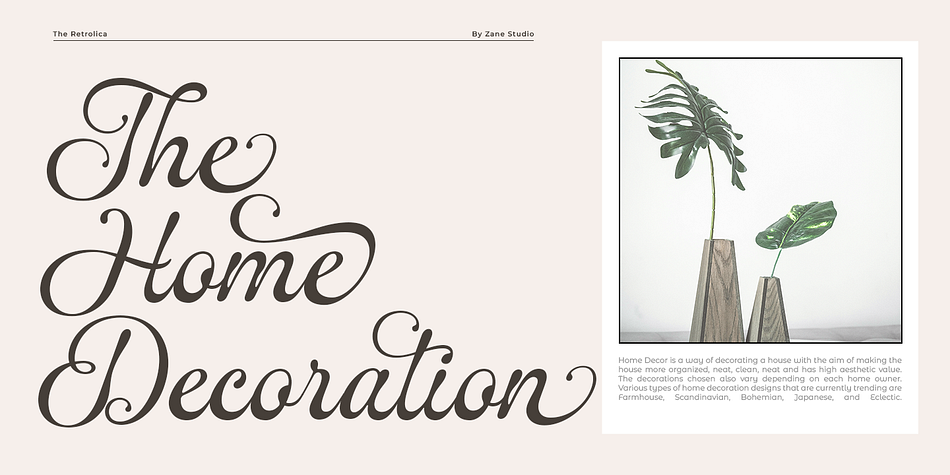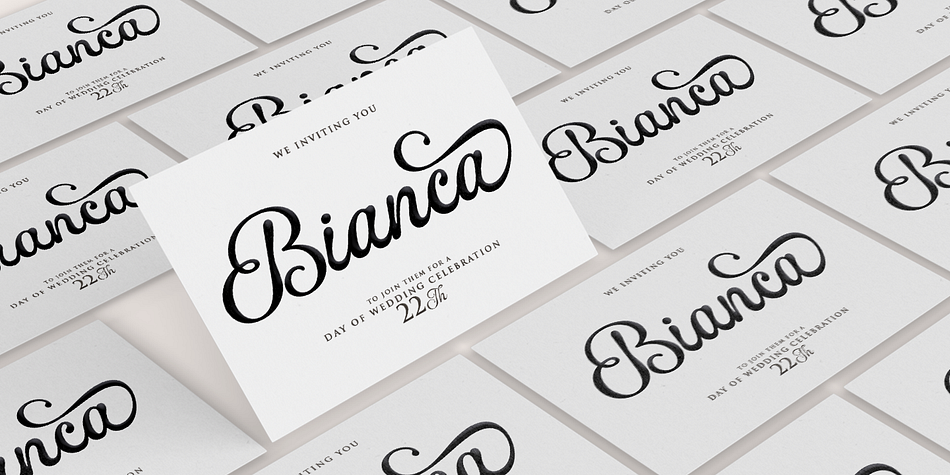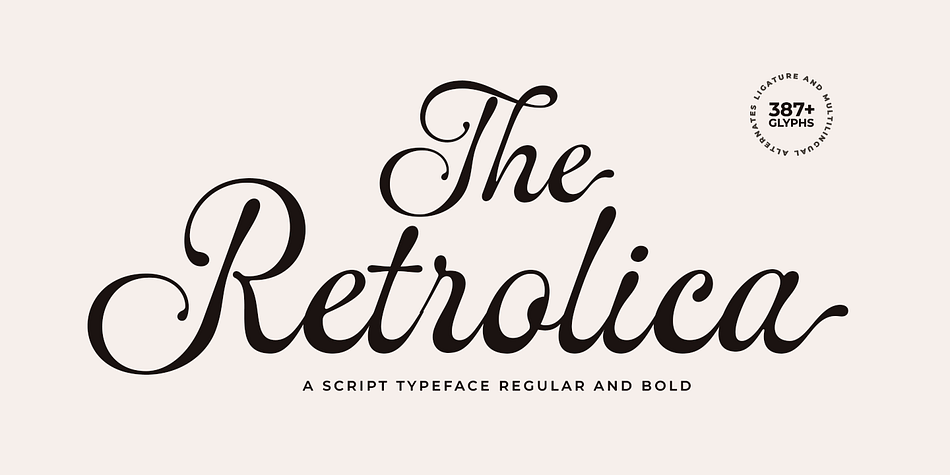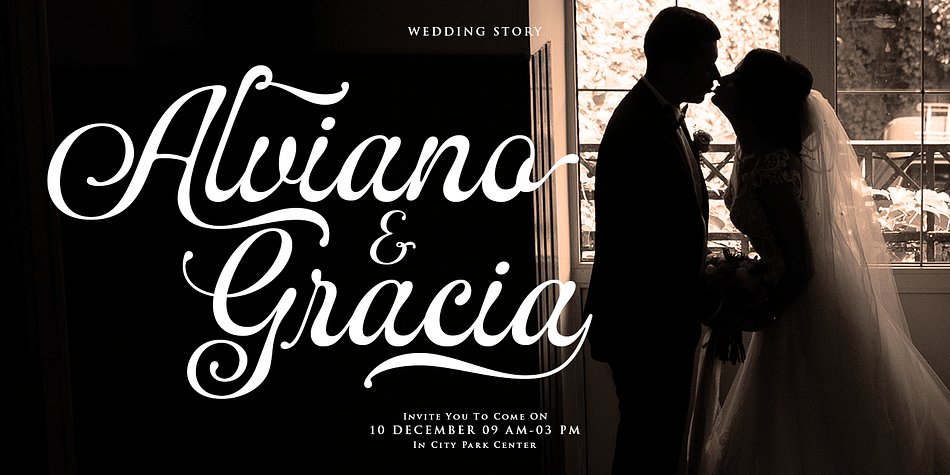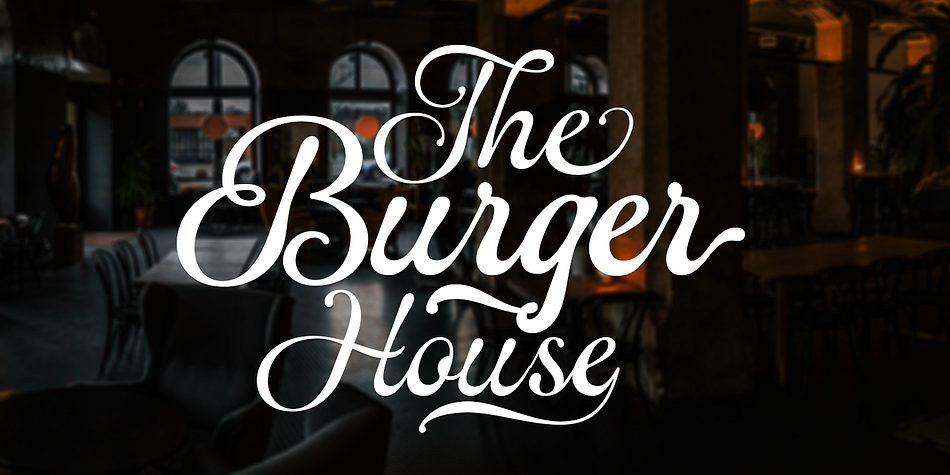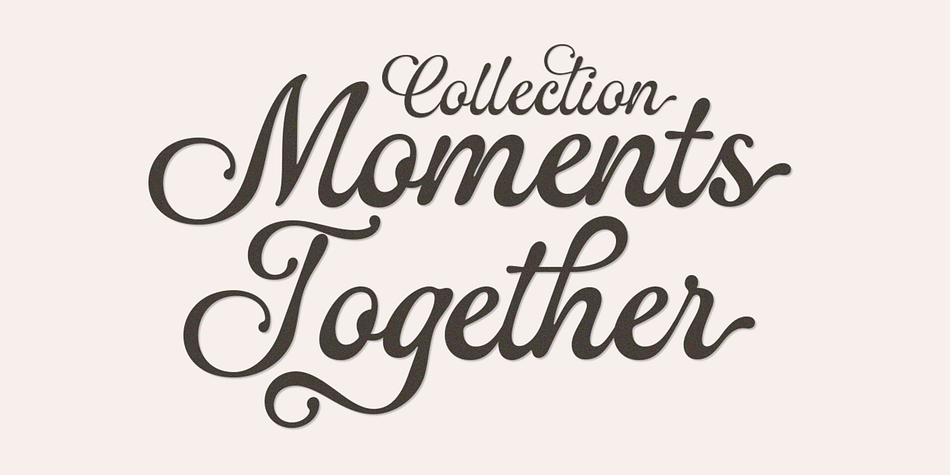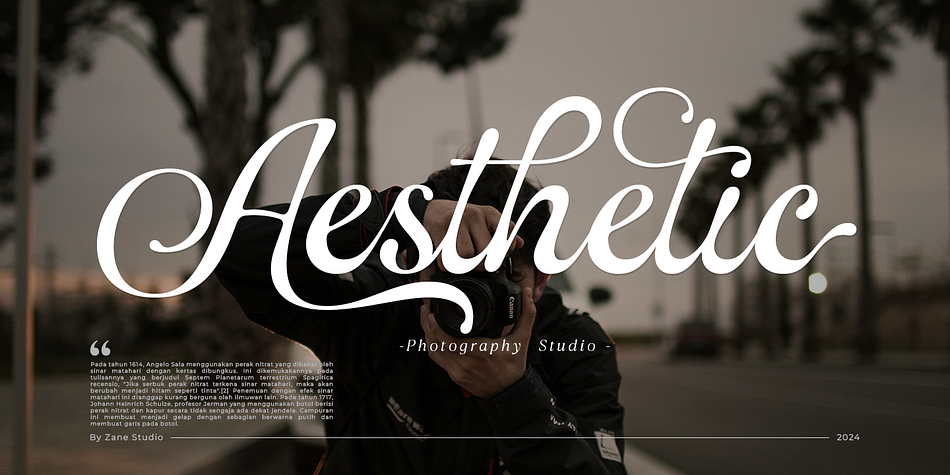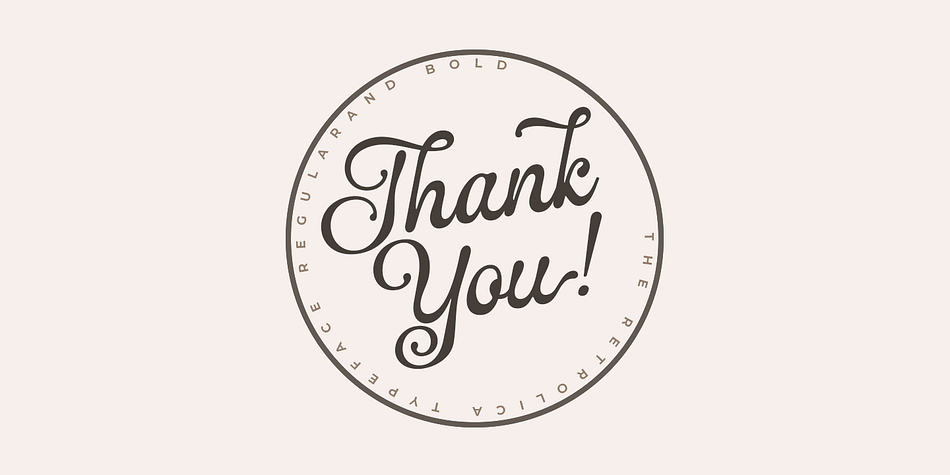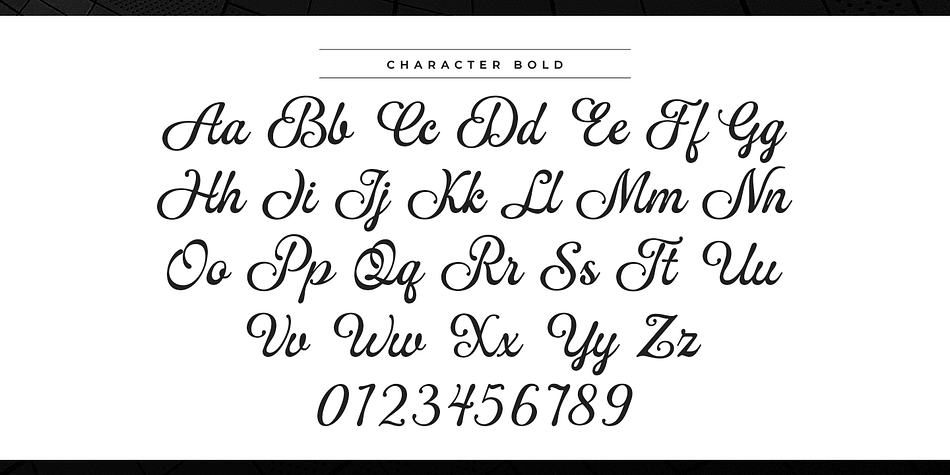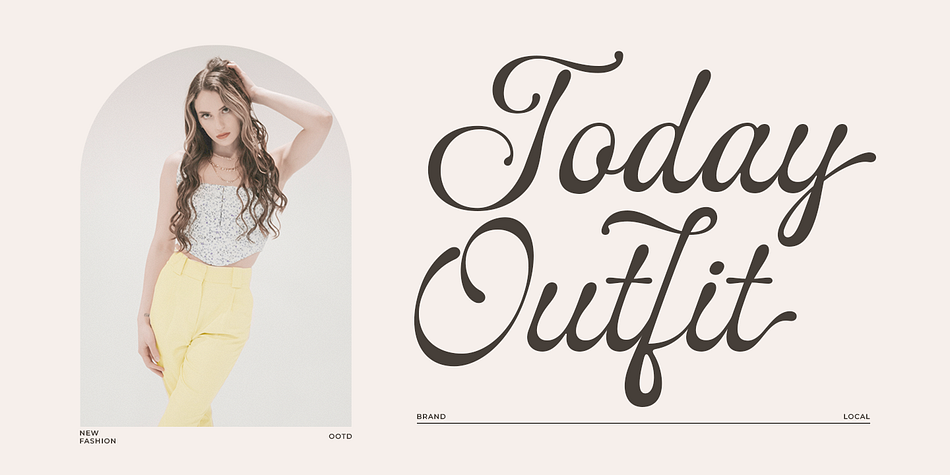
The Retrolica
The Retrolica is a script font family. This typeface has two styles and was published by Zane Studio.
The Retrolica Script is a modern classic style script font inspired by classic handwriting in books. This font comes with style sets, Contextual Alternatives, ligatures and also multi-language support which adds aesthetics that make your work even more attractive.
The Retrolica Script is perfect for your creative projects like Logotype, printed quotes, invitations, cards, product packaging, headers, Letterheads, Apparel, Web design, Magazines, Books, etc.